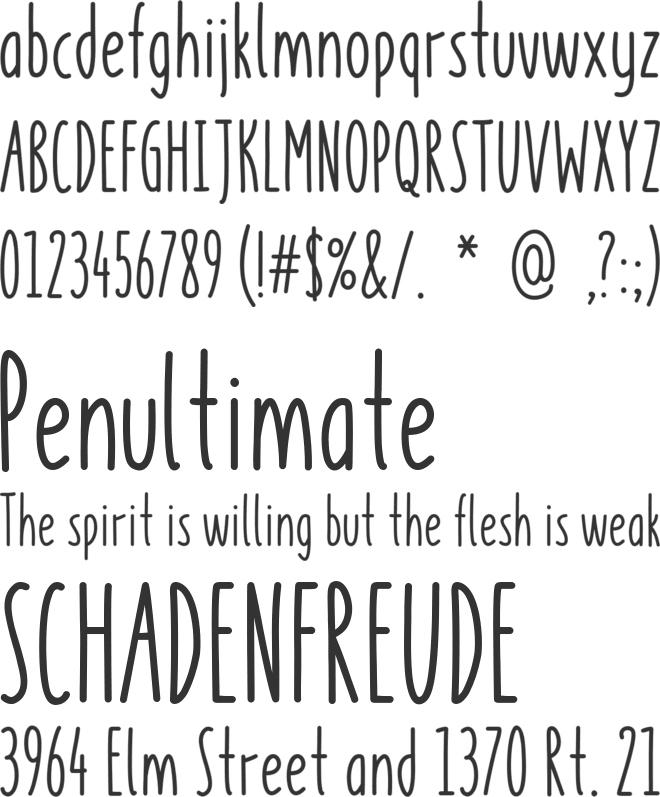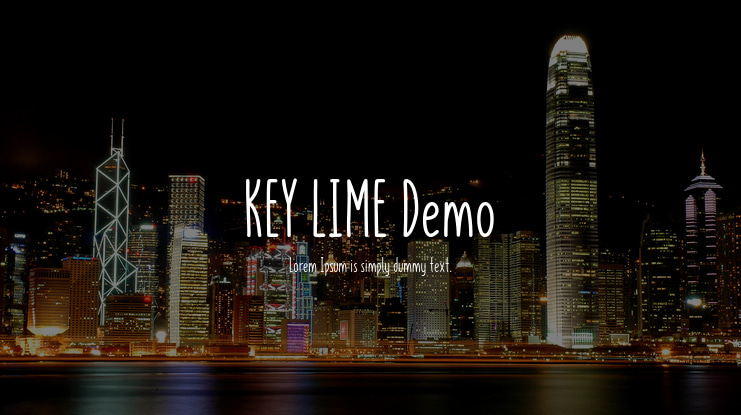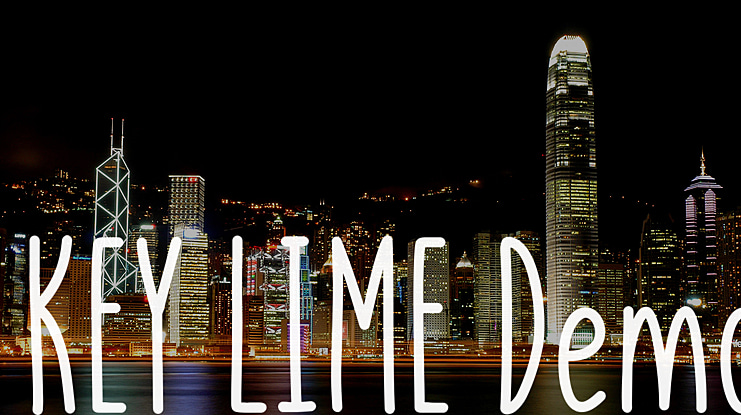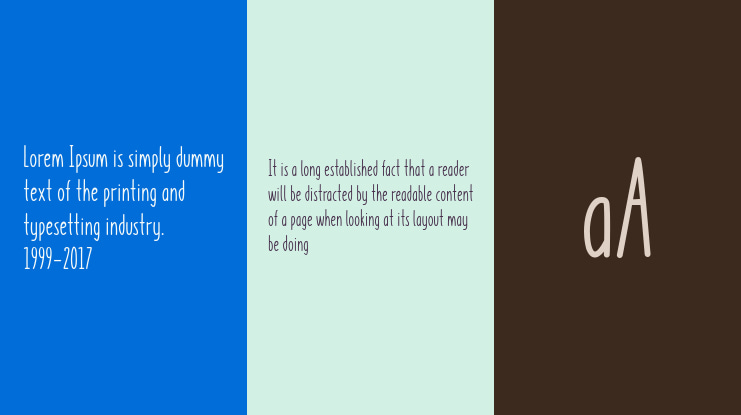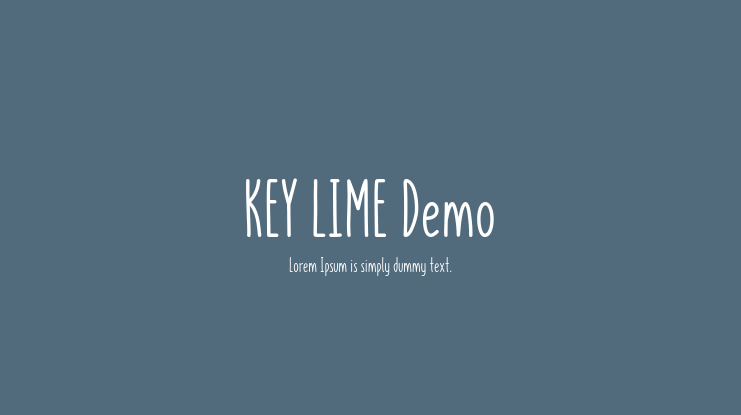
KEY LIME Demo Font
Nora Bruckhoff
Meet Key Lime, the fresh and handwritten styled typeface for your next project. Choose between its lower and uppercase letters in order to create unique contrasts. Each letter was designed carefully to create a realistic and authentic handwritten touch.